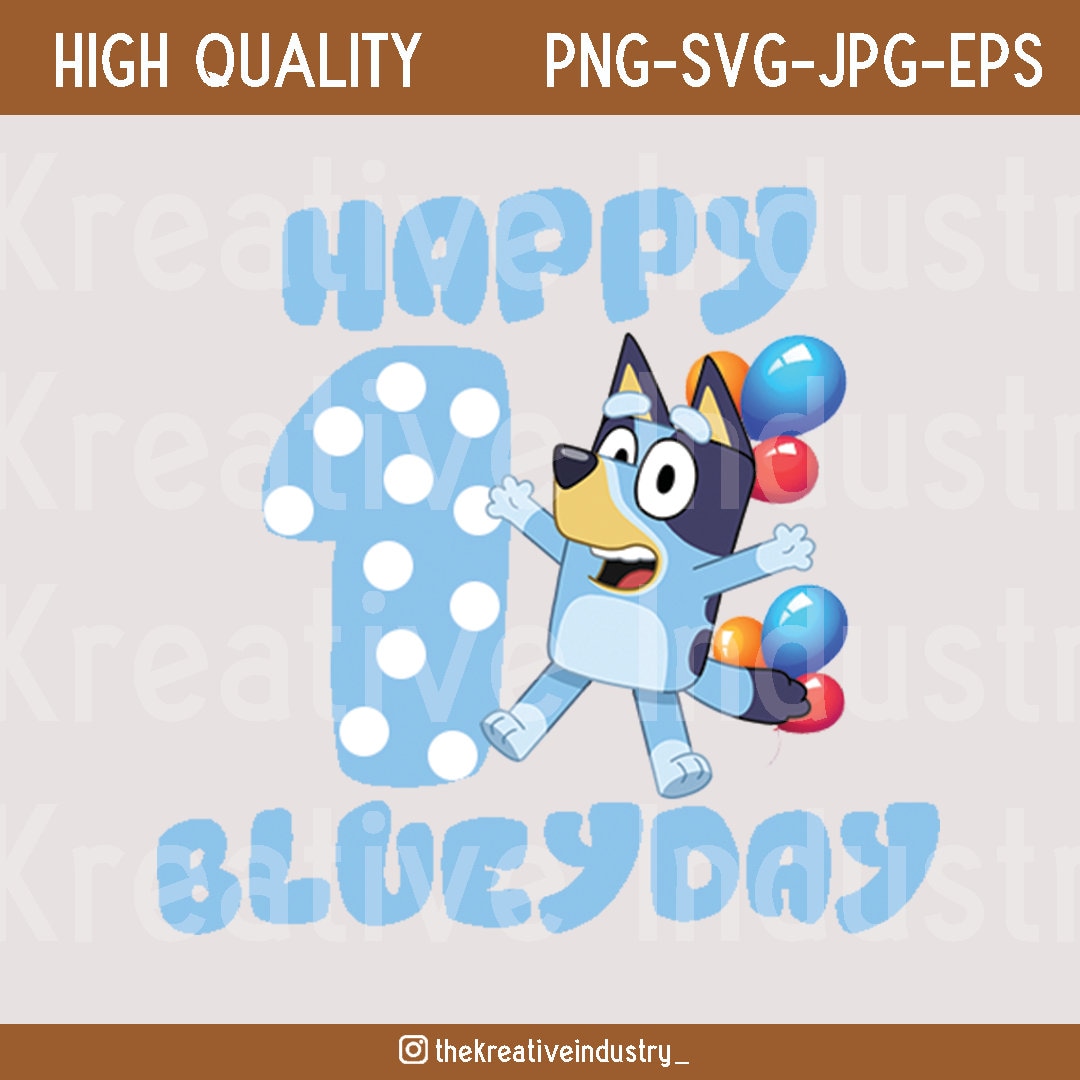
Happy Birthday Bluey Font
Happy Birthday Bluey Font - The bluey font is distinguished by its rounded edges, bold shapes, and friendly appearance. This is a sweet and friendly handwritten display font. It's a fantastic choice for projects that require a. Check out our bluey birthday font selection for the very best in unique or custom, handmade pieces from our drawings & sketches shops. Cute and fun, this font is ideal for writing wedding invitations, cards, or. Create a text effect happy birthday bluey with our online custom font generator.
It's a fantastic choice for projects that require a. Create a text effect happy birthday bluey with our online custom font generator. The bluey font is distinguished by its rounded edges, bold shapes, and friendly appearance. This is a sweet and friendly handwritten display font. Cute and fun, this font is ideal for writing wedding invitations, cards, or. Check out our bluey birthday font selection for the very best in unique or custom, handmade pieces from our drawings & sketches shops.
It's a fantastic choice for projects that require a. The bluey font is distinguished by its rounded edges, bold shapes, and friendly appearance. This is a sweet and friendly handwritten display font. Check out our bluey birthday font selection for the very best in unique or custom, handmade pieces from our drawings & sketches shops. Cute and fun, this font is ideal for writing wedding invitations, cards, or. Create a text effect happy birthday bluey with our online custom font generator.
This is a sweet and friendly handwritten display font. Create a text effect happy birthday bluey with our online custom font generator. Check out our bluey birthday font selection for the very best in unique or custom, handmade pieces from our drawings & sketches shops. Cute and fun, this font is ideal for writing wedding invitations, cards, or. The bluey.
This is a sweet and friendly handwritten display font. Create a text effect happy birthday bluey with our online custom font generator. Cute and fun, this font is ideal for writing wedding invitations, cards, or. Check out our bluey birthday font selection for the very best in unique or custom, handmade pieces from our drawings & sketches shops. The bluey.
The bluey font is distinguished by its rounded edges, bold shapes, and friendly appearance. It's a fantastic choice for projects that require a. Check out our bluey birthday font selection for the very best in unique or custom, handmade pieces from our drawings & sketches shops. This is a sweet and friendly handwritten display font. Create a text effect happy.
Check out our bluey birthday font selection for the very best in unique or custom, handmade pieces from our drawings & sketches shops. It's a fantastic choice for projects that require a. The bluey font is distinguished by its rounded edges, bold shapes, and friendly appearance. Cute and fun, this font is ideal for writing wedding invitations, cards, or. This.
This is a sweet and friendly handwritten display font. The bluey font is distinguished by its rounded edges, bold shapes, and friendly appearance. It's a fantastic choice for projects that require a. Cute and fun, this font is ideal for writing wedding invitations, cards, or. Check out our bluey birthday font selection for the very best in unique or custom,.
It's a fantastic choice for projects that require a. Cute and fun, this font is ideal for writing wedding invitations, cards, or. The bluey font is distinguished by its rounded edges, bold shapes, and friendly appearance. This is a sweet and friendly handwritten display font. Create a text effect happy birthday bluey with our online custom font generator.
The bluey font is distinguished by its rounded edges, bold shapes, and friendly appearance. It's a fantastic choice for projects that require a. Create a text effect happy birthday bluey with our online custom font generator. This is a sweet and friendly handwritten display font. Check out our bluey birthday font selection for the very best in unique or custom,.
Check out our bluey birthday font selection for the very best in unique or custom, handmade pieces from our drawings & sketches shops. Create a text effect happy birthday bluey with our online custom font generator. The bluey font is distinguished by its rounded edges, bold shapes, and friendly appearance. It's a fantastic choice for projects that require a. Cute.
Create a text effect happy birthday bluey with our online custom font generator. This is a sweet and friendly handwritten display font. Cute and fun, this font is ideal for writing wedding invitations, cards, or. The bluey font is distinguished by its rounded edges, bold shapes, and friendly appearance.